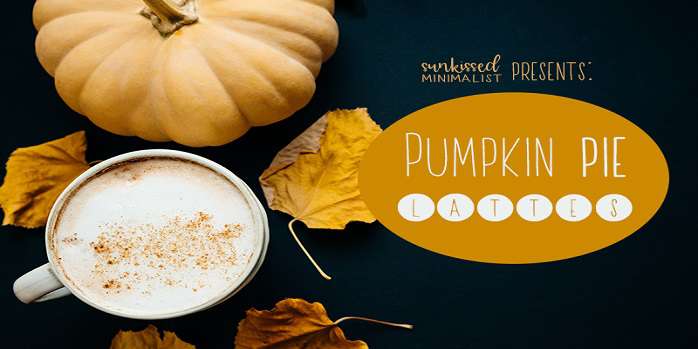
Pumpkin Pie Lattes Font
Pumpkin Pie Lattes is a high quality Handwritten font that is designed by Chris Glover and is available for free download and personal use. The free version provides all uppercase and lowercase letters and a few special characters too.